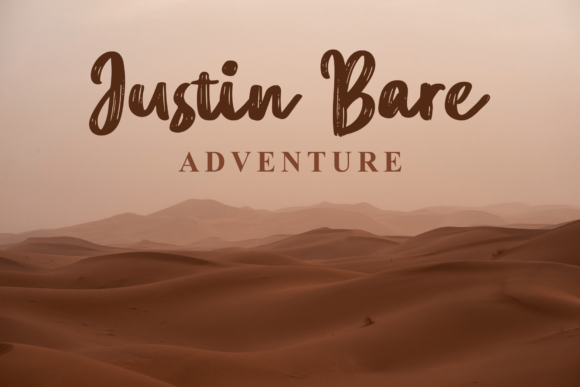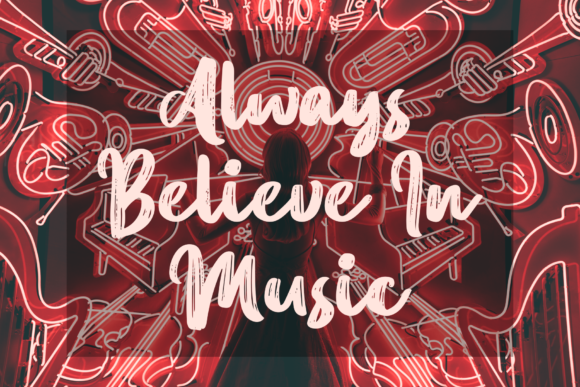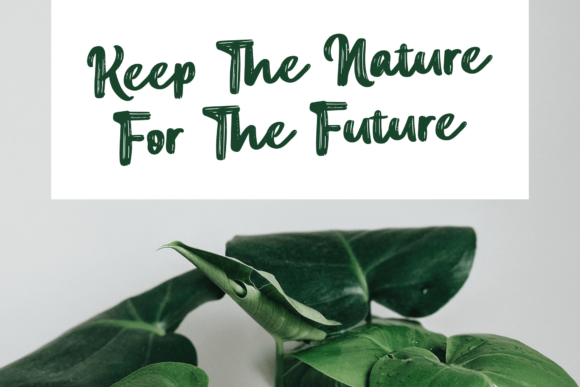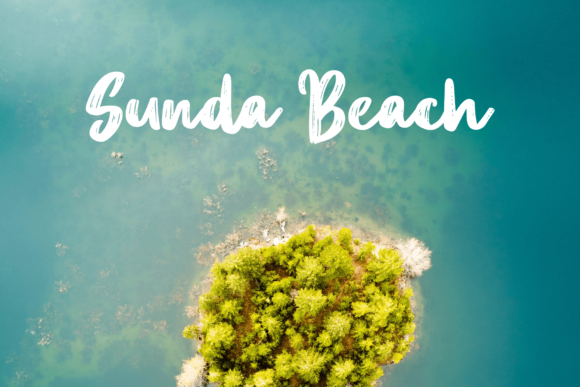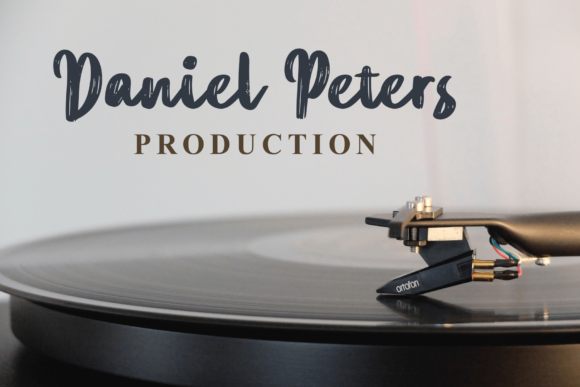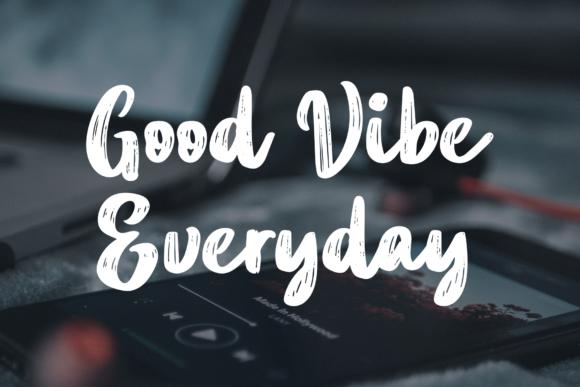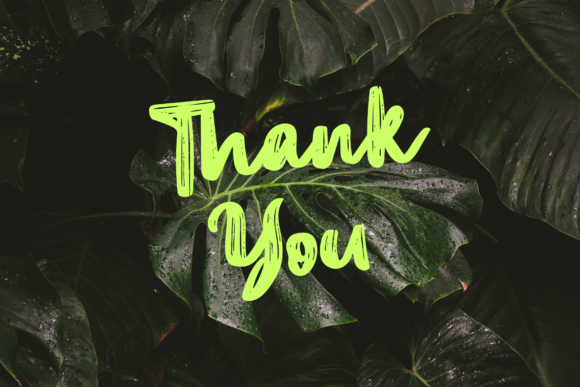
Avant Grande Font
About Avant Grande Font
The Avant Grande is a striking handmade typeface. It has a natural organic flow and is suitable for various designing needs.